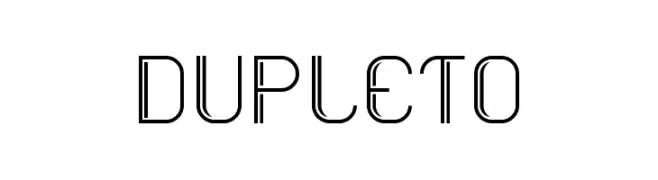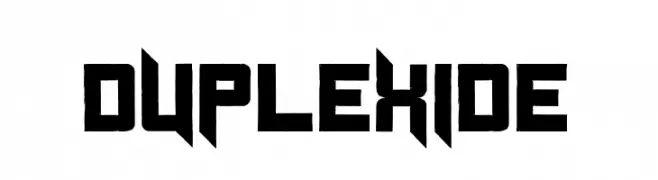
A bold, three-dimensional font with a vintage shadow effect.
Decorative numerals inside icosahedron shapes, mimicking dice.
A bold, decorative stencil-style font with enclosed characters.
A bold, blocky font with a pixelated, digital aesthetic.
A modern, geometric font with a double-line structure for a futuristic look.
A modern, geometric font with parallel lines creating depth and sophistication.
A bold, angular font with a futuristic and geometric design.
A bold, geometric font with a futuristic, angular design.